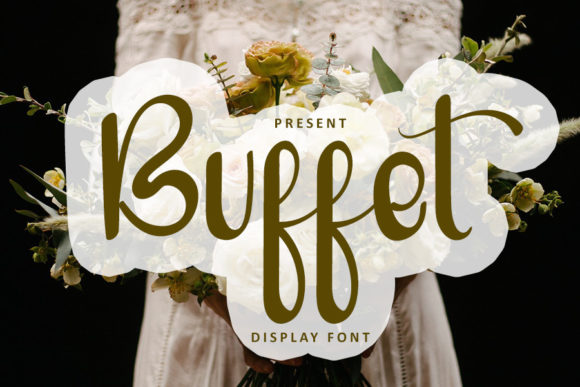
Journey into the realm of timeless elegance with Buffet Font, a script font family crafted with precision and artistry. This modern-day masterpiece draws inspiration from classic calligraphy, offering a captivating blend of sophistication and charm. As a creation of Inermedia STUDIO, Buffet Font is a testament to the power of meticulous design.
Buffet Font elevates your projects to new heights with its balanced and varied character set. Each letterform is carefully crafted to exude a distinct personality, while maintaining a cohesive harmony. Whether you're designing logos, creating social media graphics, or crafting stunning invitations, Buffet Font is the perfect companion.
Unleash the beauty of your creations with Buffet Font. Its graceful curves and flowing lines evoke a sense of timeless elegance, captivating your audience with their charm. Immerse yourself in a world of creativity and let the magic of Buffet Font transform your vision into reality.